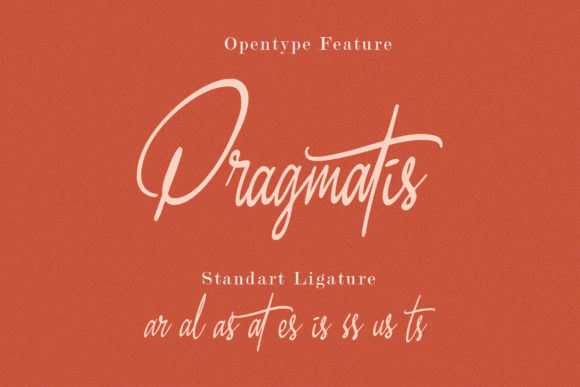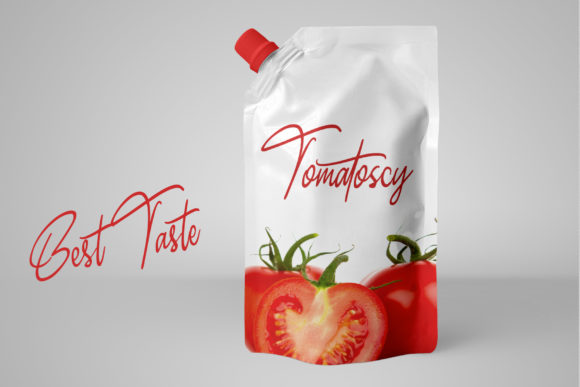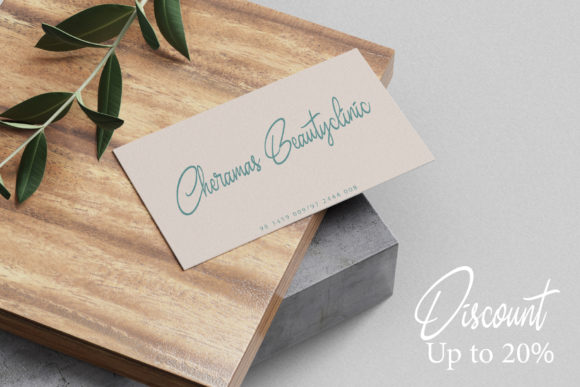
About Dragmatis Font
Dragmatis is an incredibly distinct, delicate and timeless handwritten font. It looks stunning on wedding invitations, thank you cards, quotes, greeting cards, logos, business cards and every other design which needs a handwritten touch.